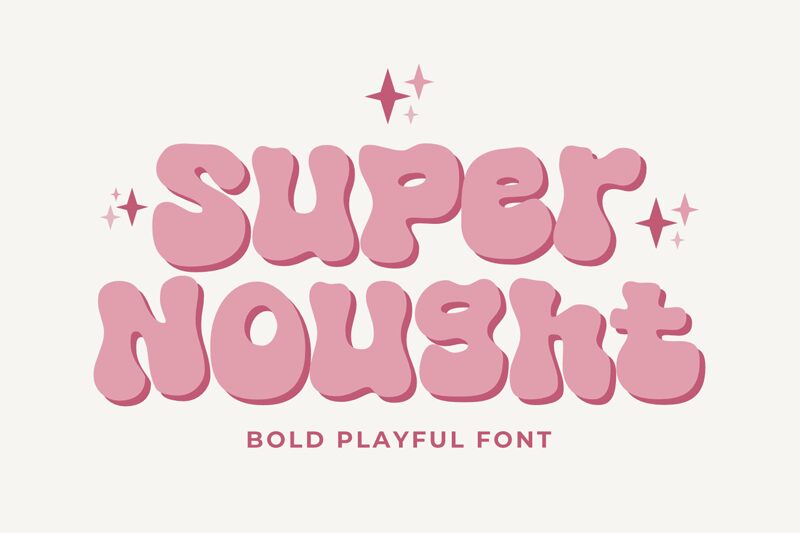
Super Nought
Embrace the lively spirit of Super Nought, a display font crafted by fsuarez913 that brings an extra-bold touch to your creative endeavors. With its groovy and playful style, this font is a versatile powerhouse, ready to elevate your designs from the mundane to the extraordinary. Ideal for impactful headlines and dynamic logos, Super Nought is not just a typeface; it's an instant statement maker.
Whether you're aiming for whimsical charm or bold prominence in your projects, Super Nought adapts with ease. Its exuberant curves and robust form make it perfect for branding exercises requiring a dash of fun or any digital canvas seeking to capture attention. Dive into the world where type meets playfulness – let Super Nought transform your message into something unforgettable.